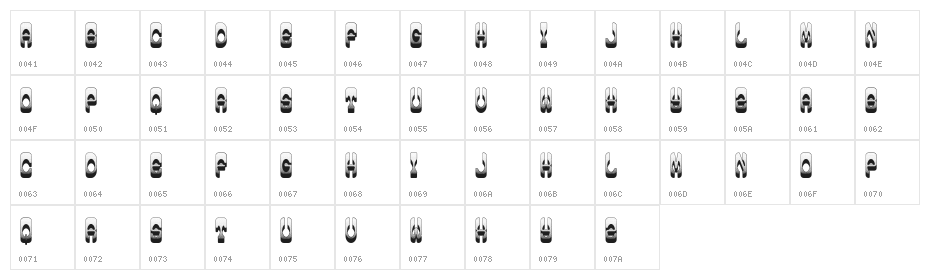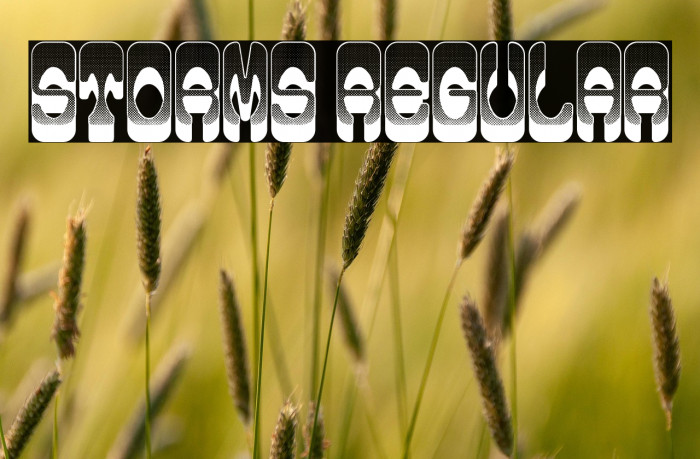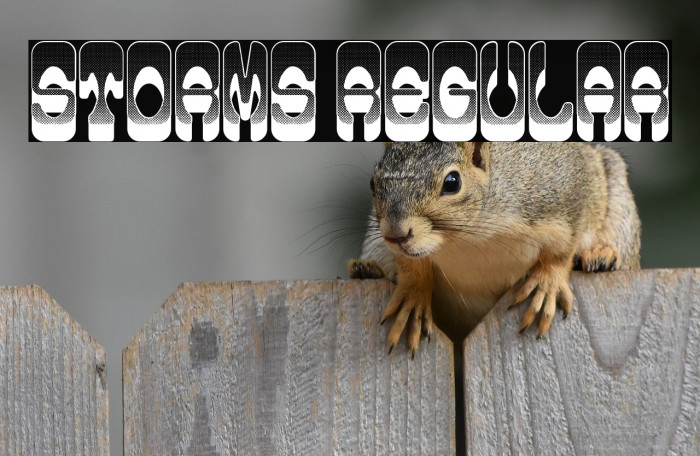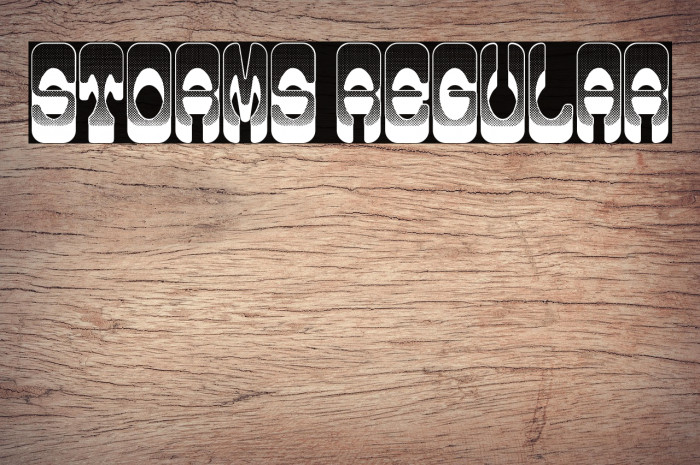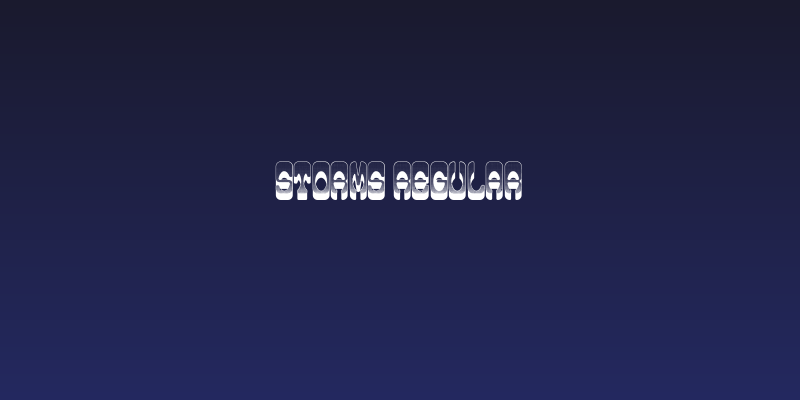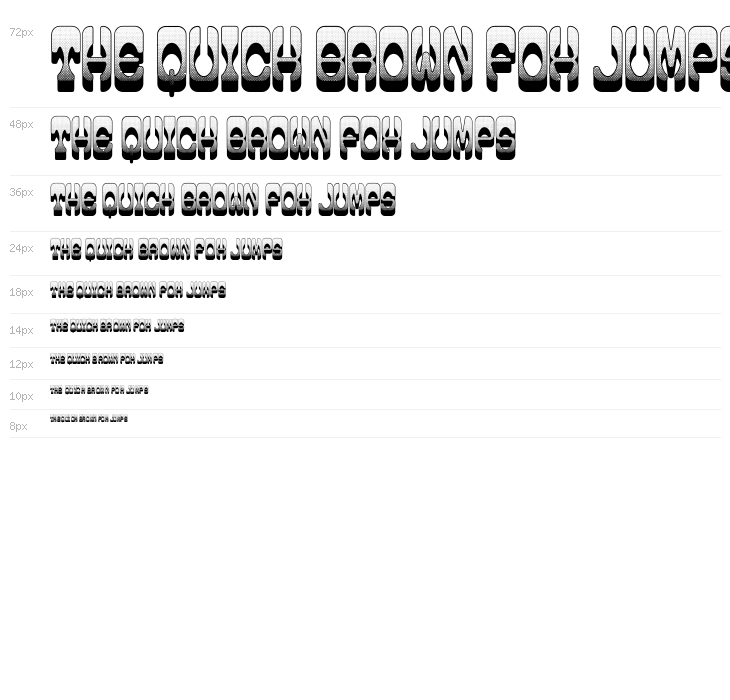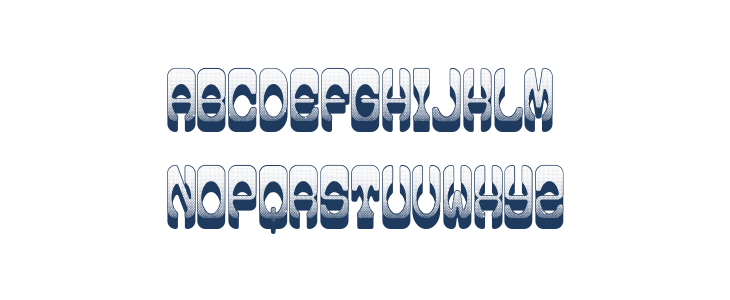
Storms Regular Font
Storms Regular Description
This font features a bold, three-dimensional design with a unique gradient effect that gives each character a sense of depth and texture. The letters are rounded and have a playful, yet robust appearance, making them stand out in any design. The shading adds a dynamic quality, creating a sense of movement and energy. The font's style is reminiscent of retro and vintage aesthetics, yet it maintains a modern appeal through its clean lines and structured form. This combination of elements makes it versatile for various creative projects.
| Overall Style | Retro, Modern |
| Proposed Projects | Ideal for posters, logos, headlines, and any design requiring a standout, dynamic typeface. |